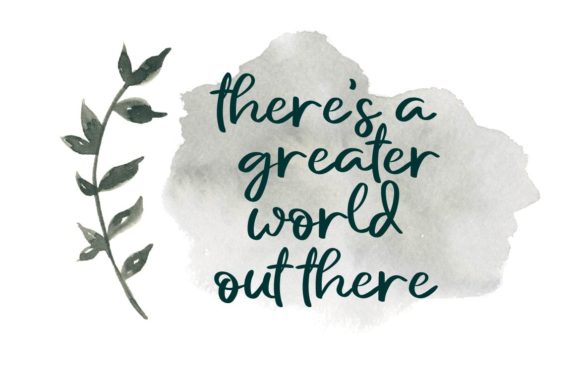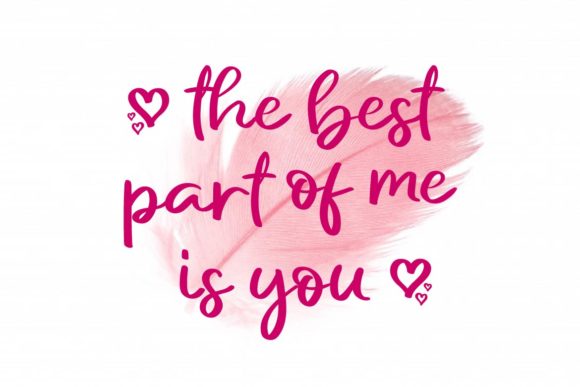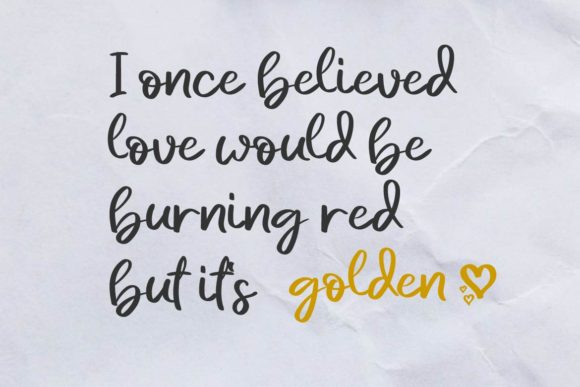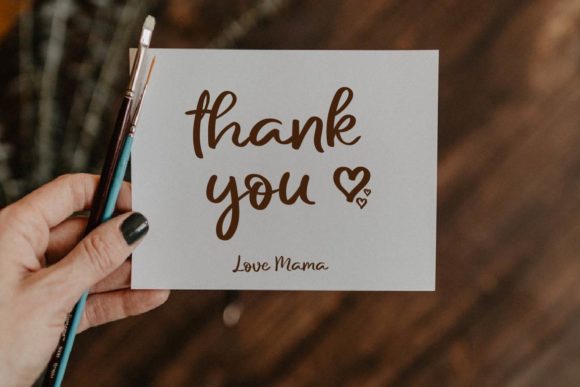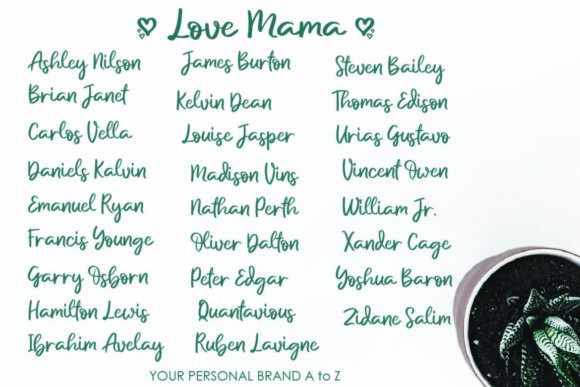
Love Mama Font
About Love Mama Font
Love Mama is a modern script font. It features an incredibly classic style, while still keeping a friendly feel. It will elevate a wide range of design projects to the highest level, be it branding, headings, wedding designs, invitations, signatures, logos, labels, and much more!